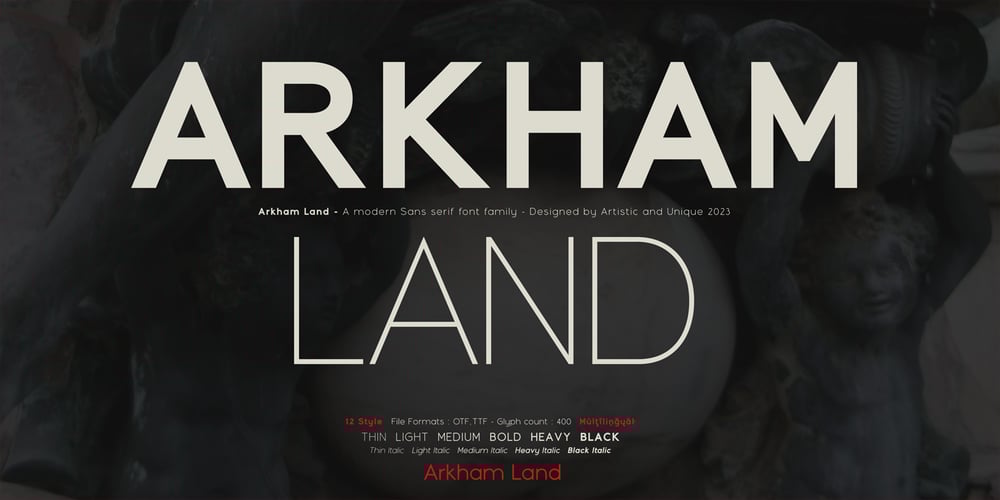
Arkham Land
Arkham Land font
Arkham Land Font Family was designed by Osman Taner Kucukgenc and published by Artisticandunique. Arkham Land contains 12 styles and family package options. Arkham Land – Sans Serif Font Family – Multilingual – 12 StyleArkham Land Sans serif font family helps you create many alternatives in your creative projects with its 12 styles.With its elegant and strong structure, different weights, it is also assertive about being a highly readable font.It provides flexibility in the width of usage areas in your projects, from thin styles to Black styles. It is a timeless font family with is rich styles, multilingual supports and modern structure. You can use Thin styles in elegant and stylish projects, and Black styles in strong titles.This font comes with uppercase, lowercase, punctuation, symbols and numbers, ligatures and multilingual options.Great for books and magazines, editorials, headlines, websites, logos, branding, advertising and more.This font family can meet your needs in all creative projects, modern and classic.With this font you can create your unique designs.If you have a question, please contact me.Have a good time.